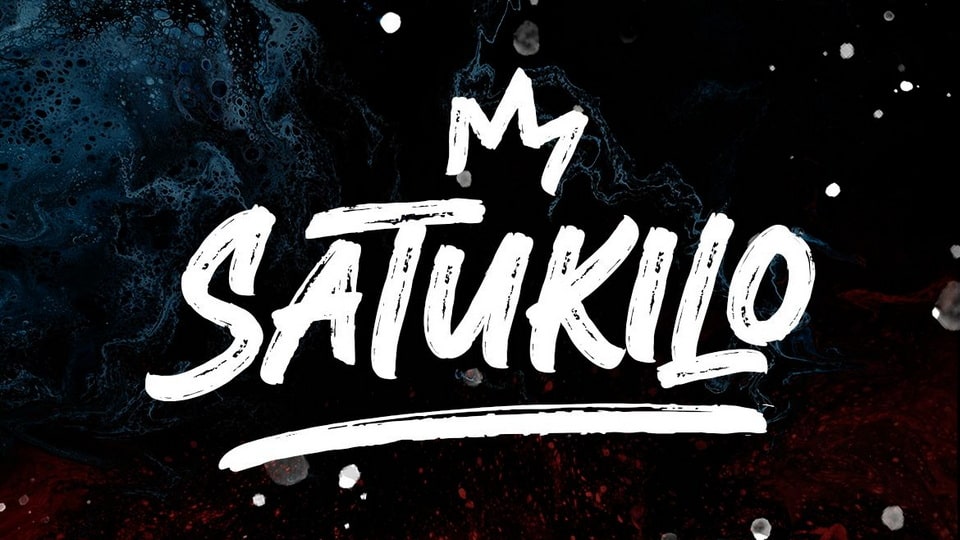
Download SatuKilo font, a bold handwritten brush typeface that’s full of energy and personality. Perfect for posters, branding, quotes, and anything that needs a fun, creative vibe.